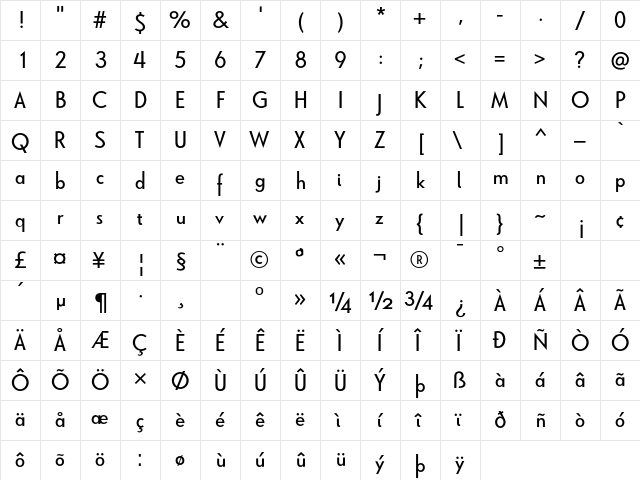
Le Havre Regular
Design Context for Le Havre Typeface
Le Havre takes a measured approach to typography — its balanced proportions and neutral character make it a reliable workhorse for both digital and print work.